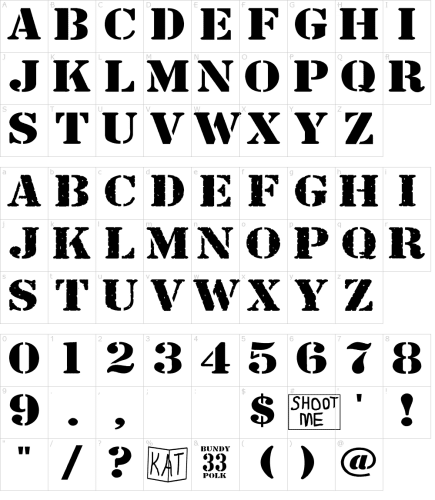
The Vlone is a street fashion brand that was established by Jabari Shelton (aka A$AP Bari) since 2013.
Bundy Yellow Font is the font used for Vlone logo. This font is designed by Mad Mutt. You can use this font for personal purpose.
The Vlone is a street fashion brand that was established by Jabari Shelton (aka A$AP Bari) since 2013.
Bundy Yellow Font is the font used for Vlone logo. This font is designed by Mad Mutt. You can use this font for personal purpose.